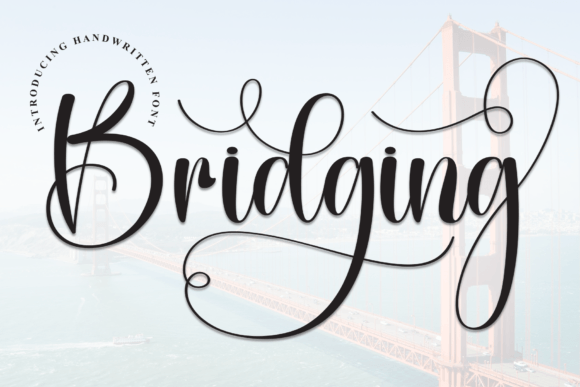
The Designer’s Delight: Bridging Font
I still remember the project that led me to discover the Bridging font. I was working on a branding campaign for a local artisan bakery, and I needed a font that would capture the warmth and uniqueness of their handmade products. After hours of scouring through font libraries, I stumbled upon Bridging, and it was love at first sight! The charming blend of bold and delicate handmade letters immediately caught my attention, and I knew I had found the perfect fit.
- Unique blend of bold and delicate letters, creating a truly eye-catching look
- Handmade feel that adds a touch of warmth and personality to any design
- Versatile and adaptable to various design projects, from branding to packaging
- Excellent for creating titles, headings, and emphasis text
- May not be suitable for body text or long paragraphs, as it can be a bit too ornate
- Some users might find the font a tad too bold or overpowering for certain designs
- Limited availability of stylistic alternates, which might limit creative freedom
The Story Behind Bridging
Bridging was designed by a talented type designer who aimed to create a font that would bridge the gap between traditional and modern typography. The designer drew inspiration from classic calligraphy and hand-lettering techniques, combined with a modern twist to create a unique and versatile font.
| What is the best use for Bridging font? | Bridging is ideal for titles, headings, and emphasis text, where a bold and eye-catching look is desired. |
| Is Bridging suitable for body text? | No, Bridging is not recommended for body text or long paragraphs, as it can be a bit too ornate and difficult to read. |
| Does Bridging have any OpenType features? | Yes, Bridging features a range of OpenType features, including stylistic alternates and glyphs. |